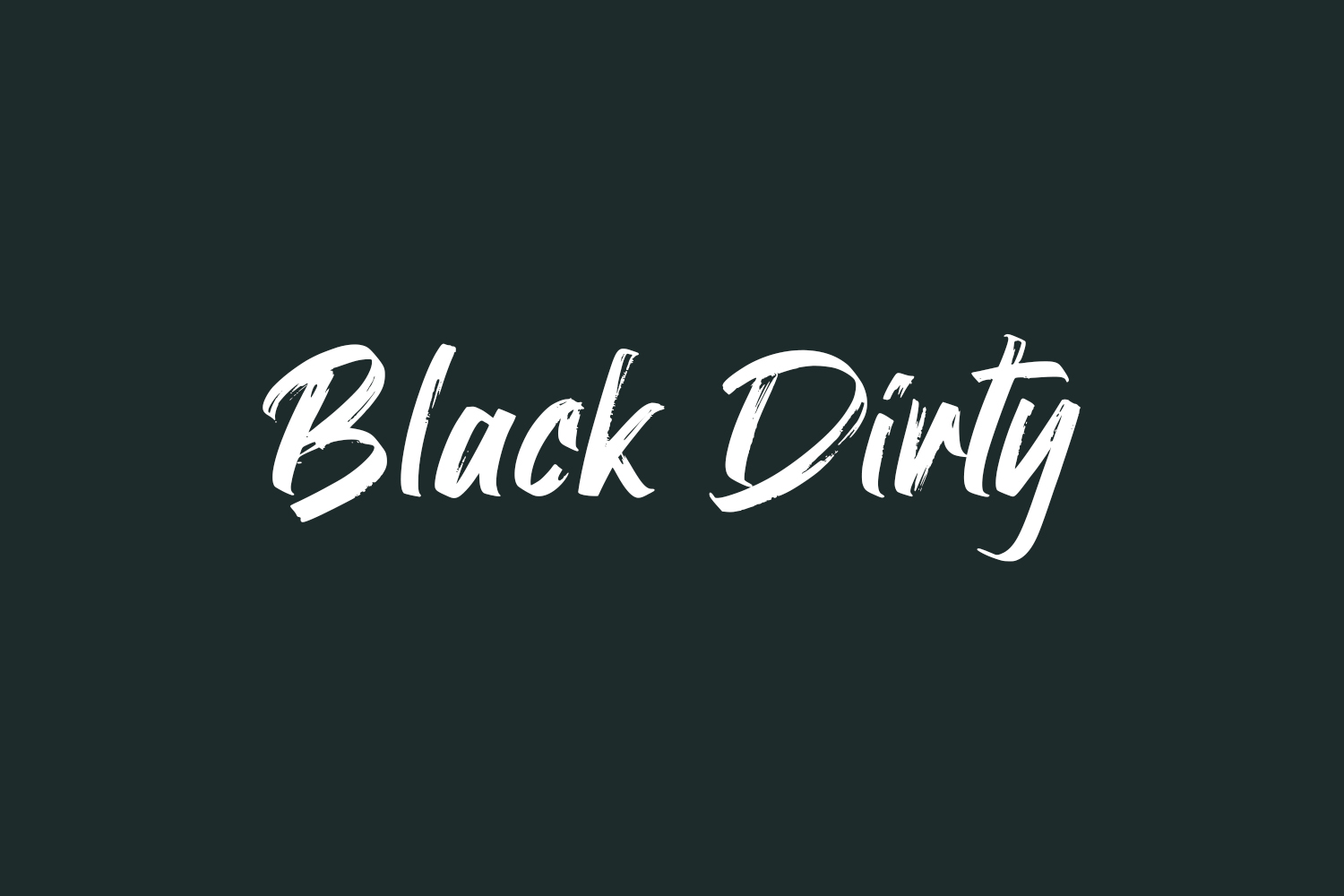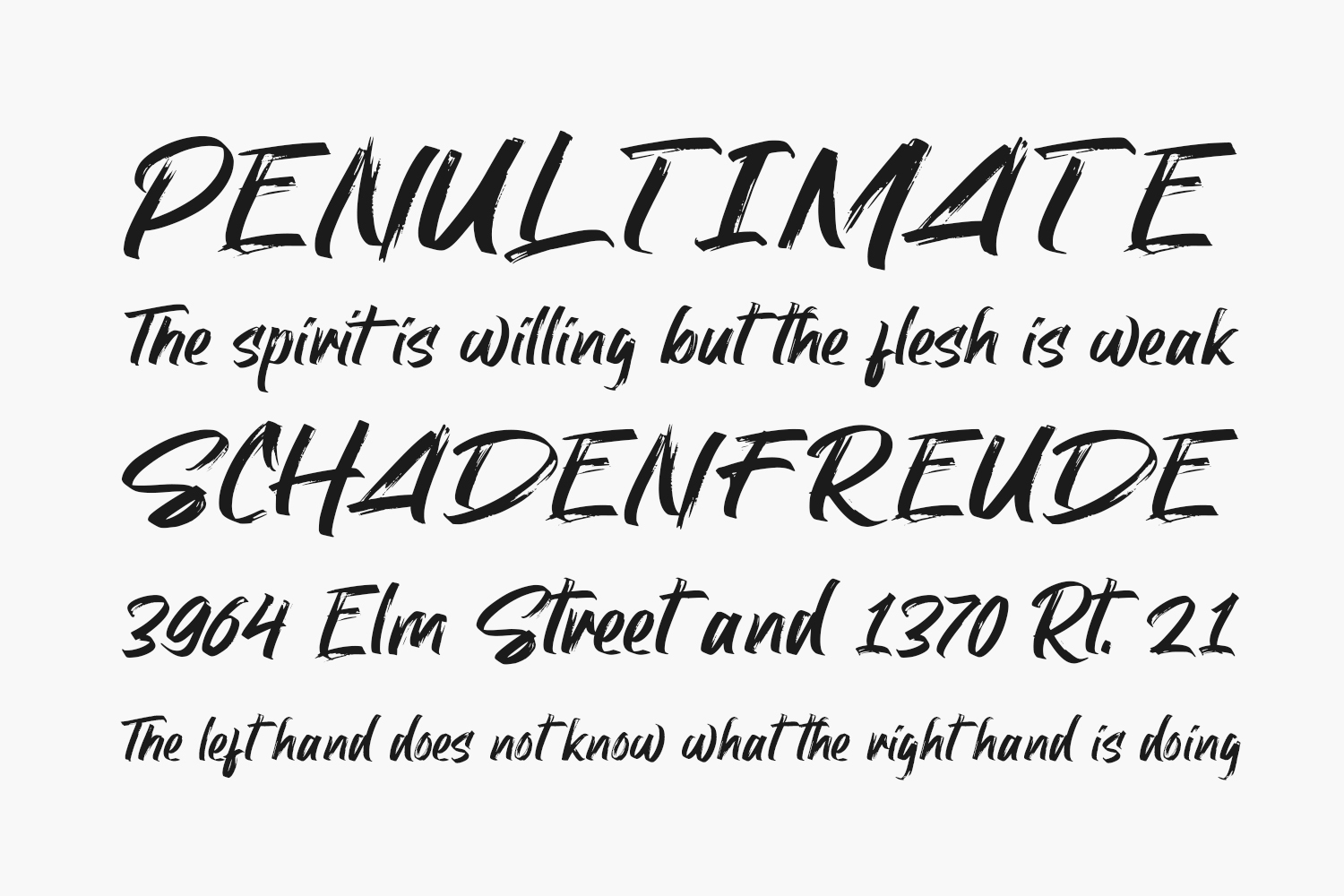
Black Dirty Free Font is a modern and playful handwritten script font. It’s great for crafters and designers. It is suitable for book texts, documentation, business reports, business correspondence, magazines, newspapers, posters, advertisements, multimedia, and corporate design. Black Dirty Free Font was designed by Kong Font and is free for personal use only. Please purchase the full version for commercial use.